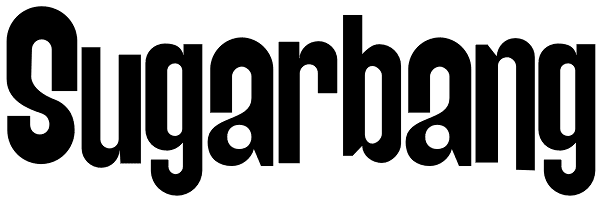
Sugarbang
The 1960’s and 1970’s are the inspiration for Sugarbang! Everything from music packages, beach party movies of the 60’s to cereal box art of the 1970’s are reflected in the kooky style that this font evokes. Sugarbang! is built on a random baseline...